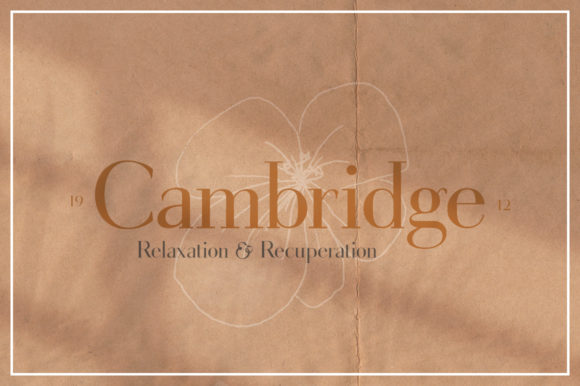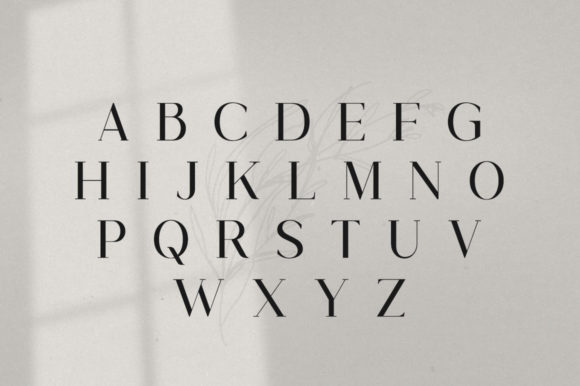
As its name suggests, Gorgeous is a true standout. This jaw-dropping serif font is both modern and classy, and will turn any design project into an eye-catcher!